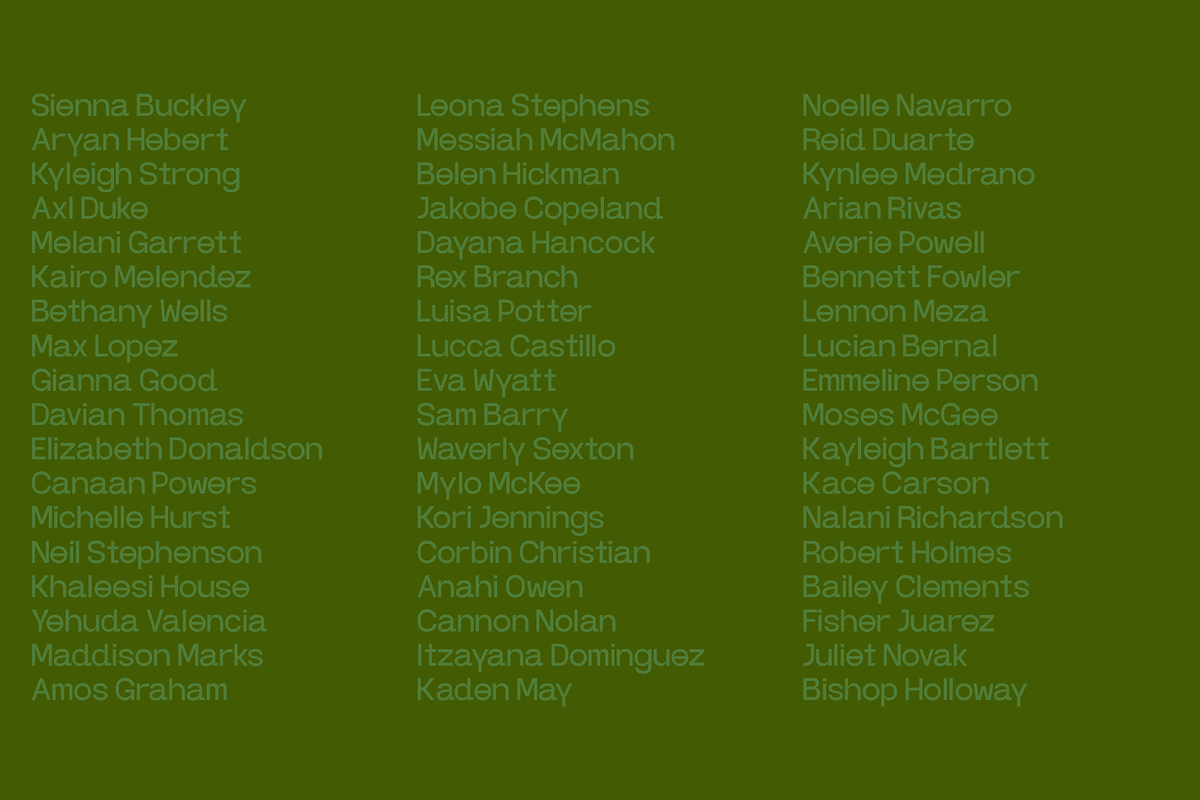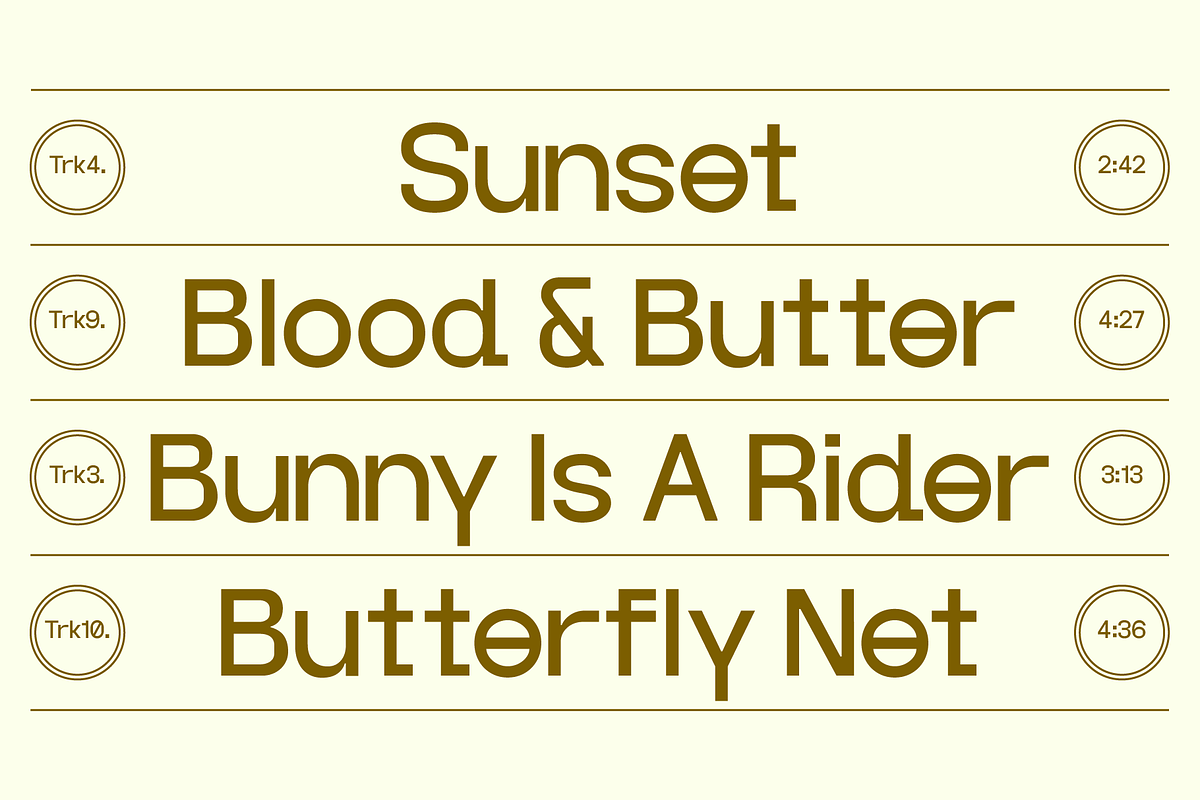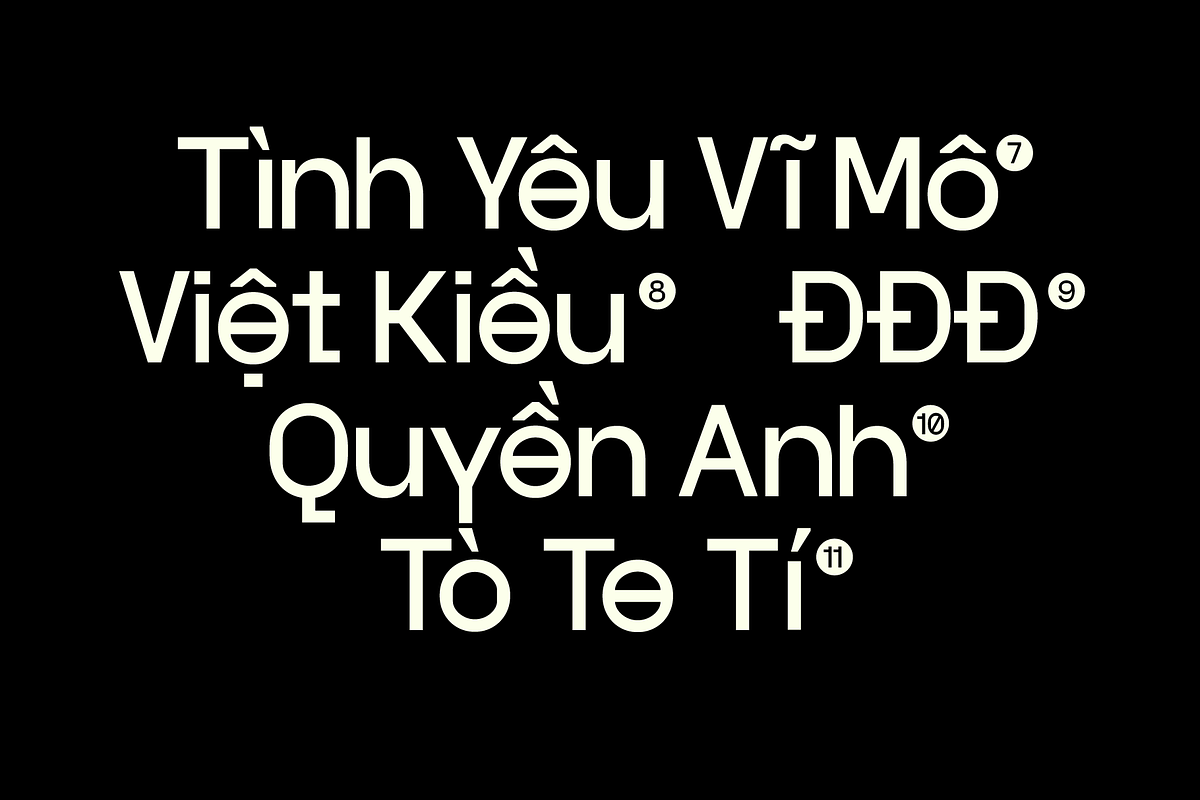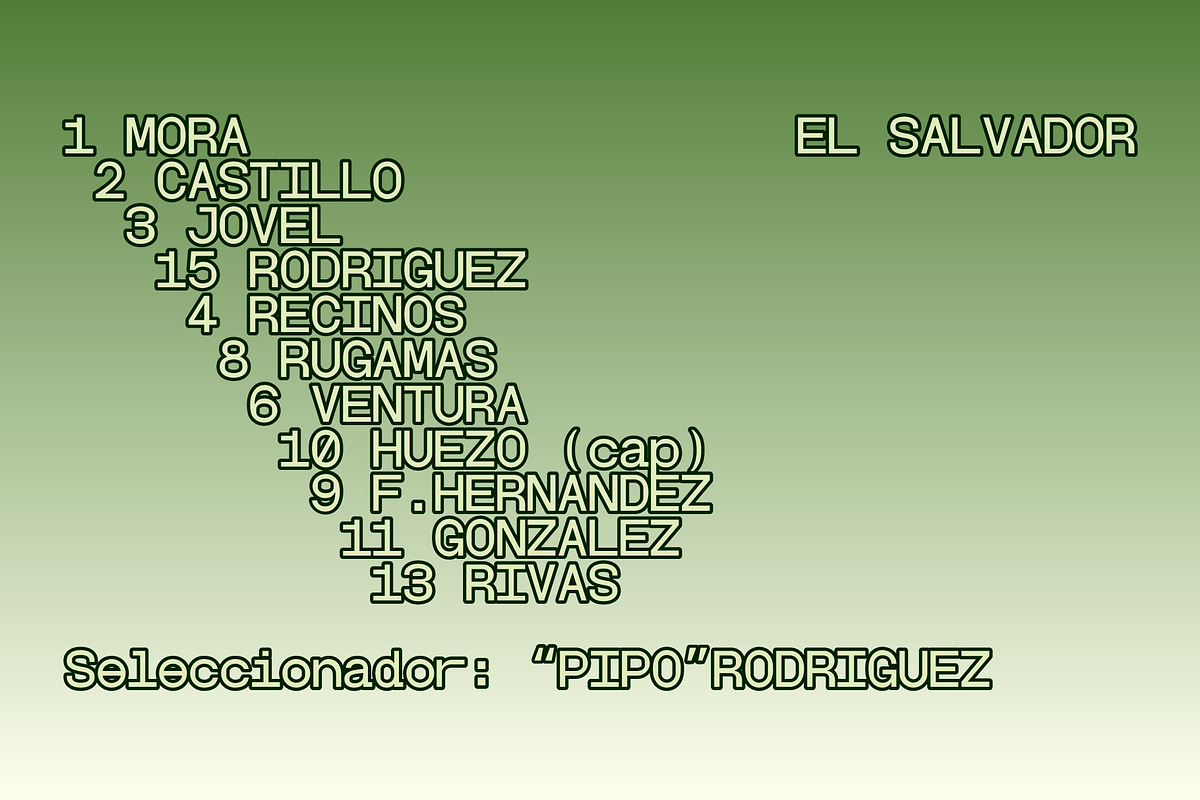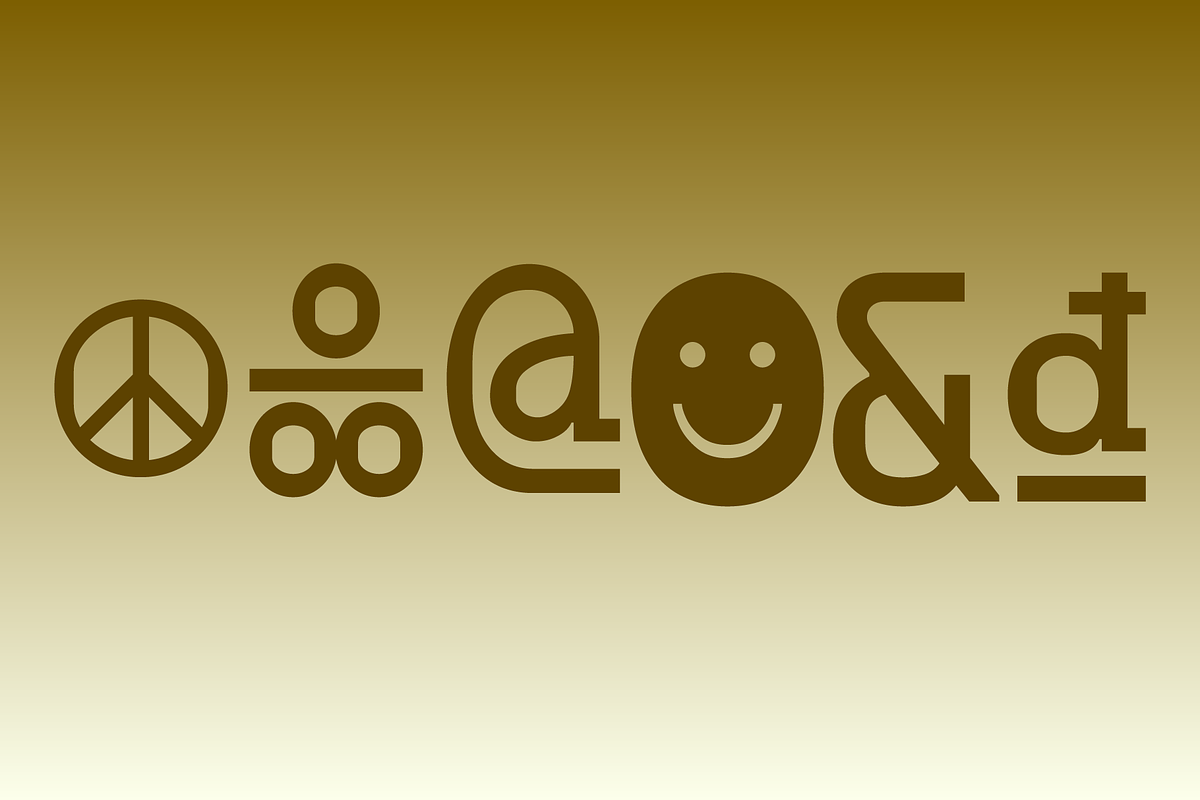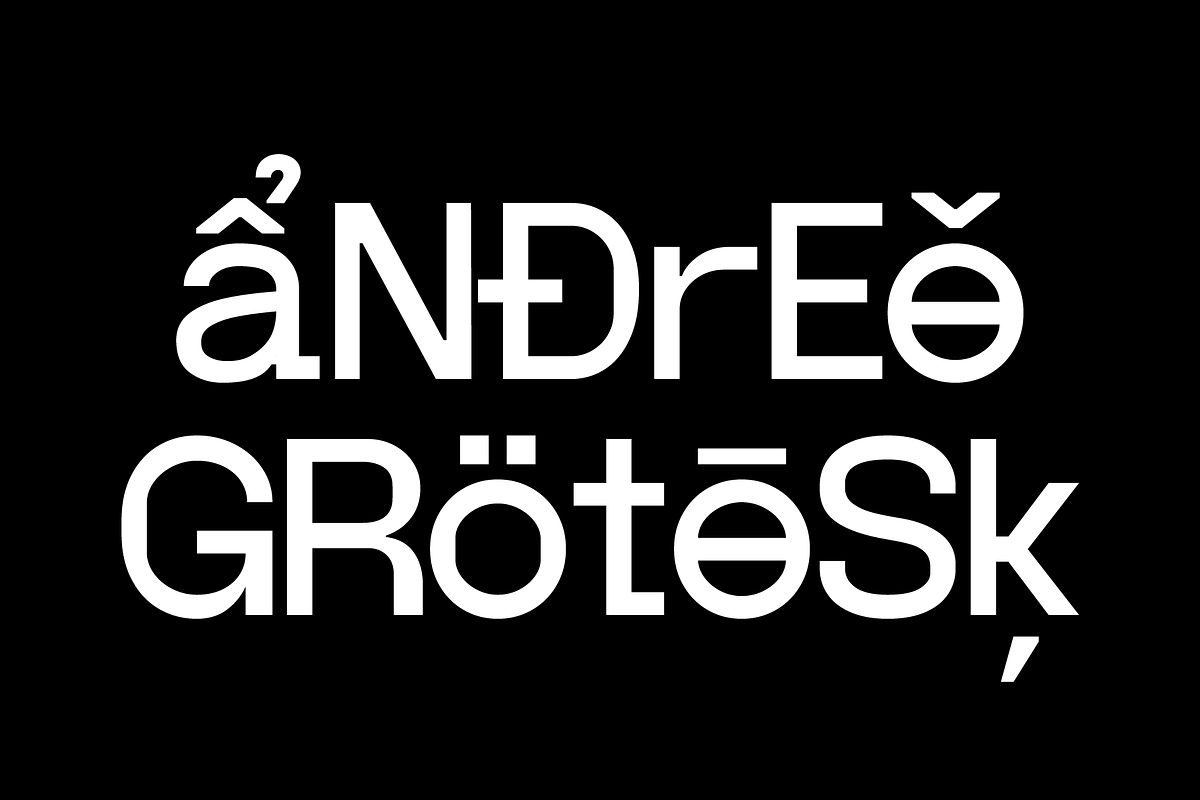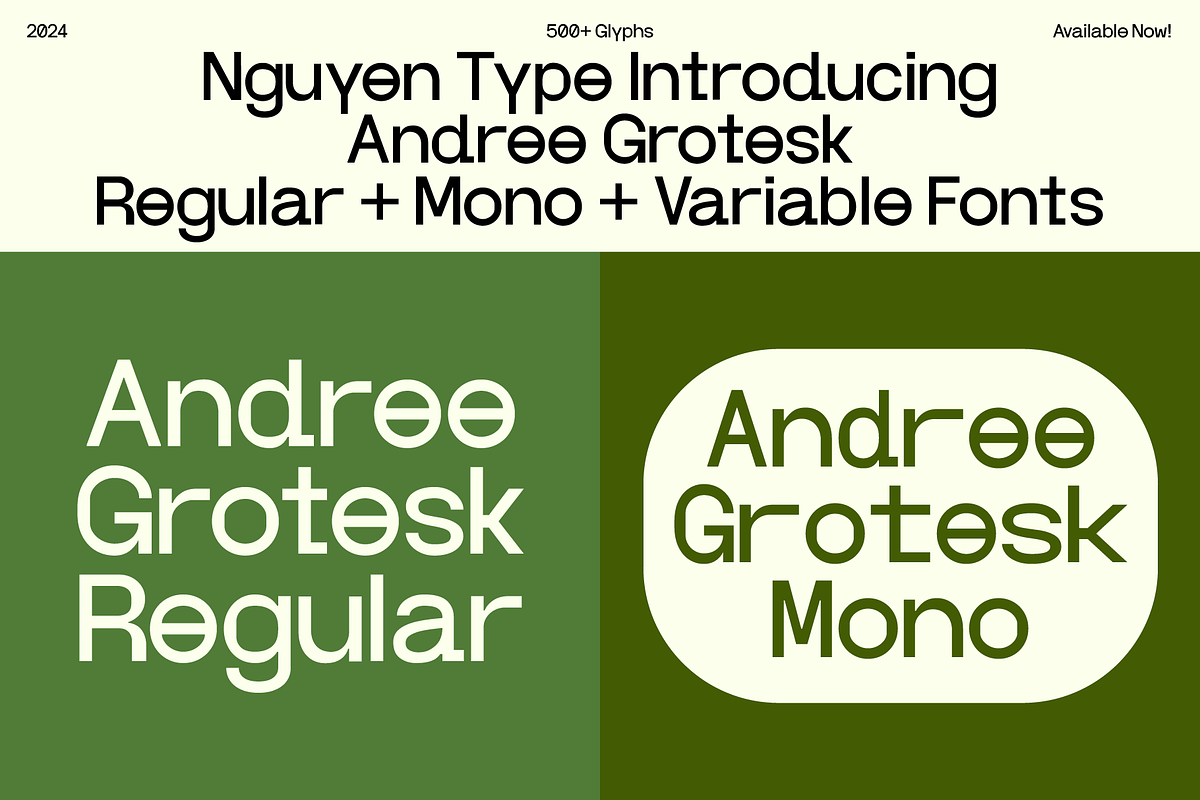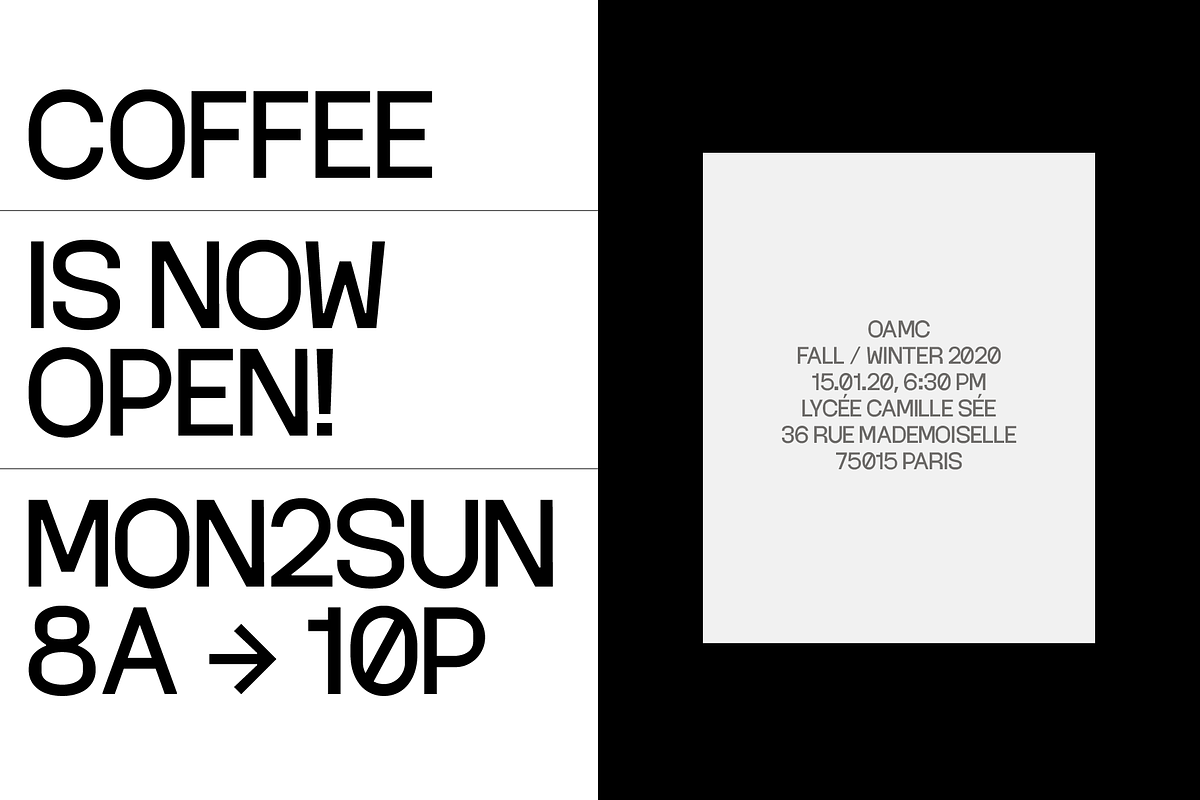
Andree Grotesk Regular
Andree Grotesk is created from the typography experiences of a graphic designer & type designer. The font does not focus too much on readability but wants to bring an interesting visual experience, where each letter expresses its personality.